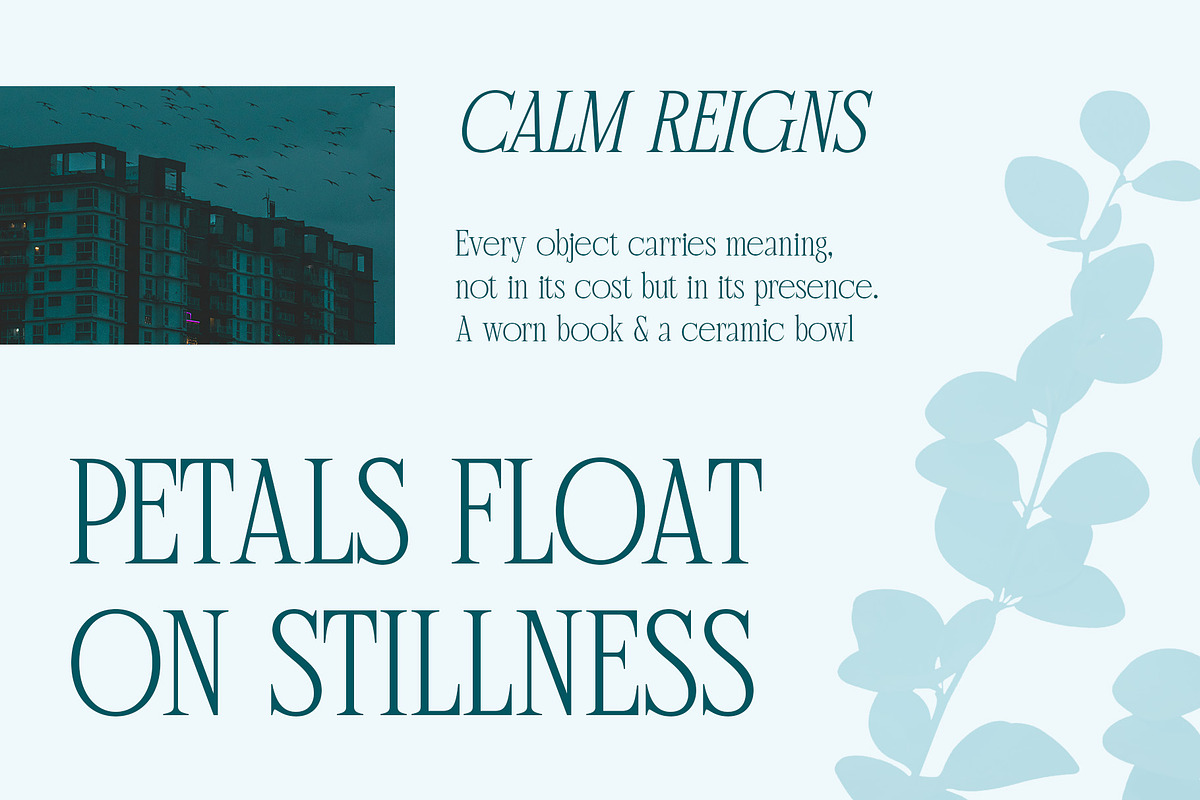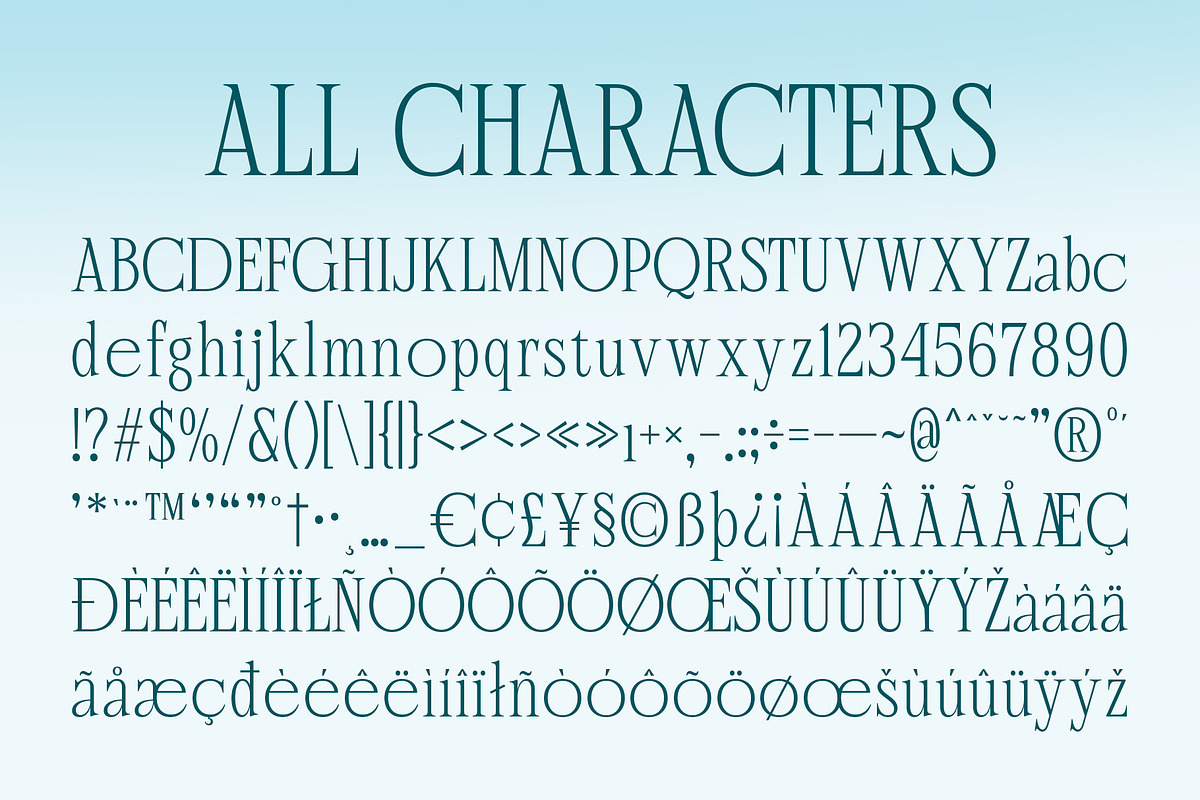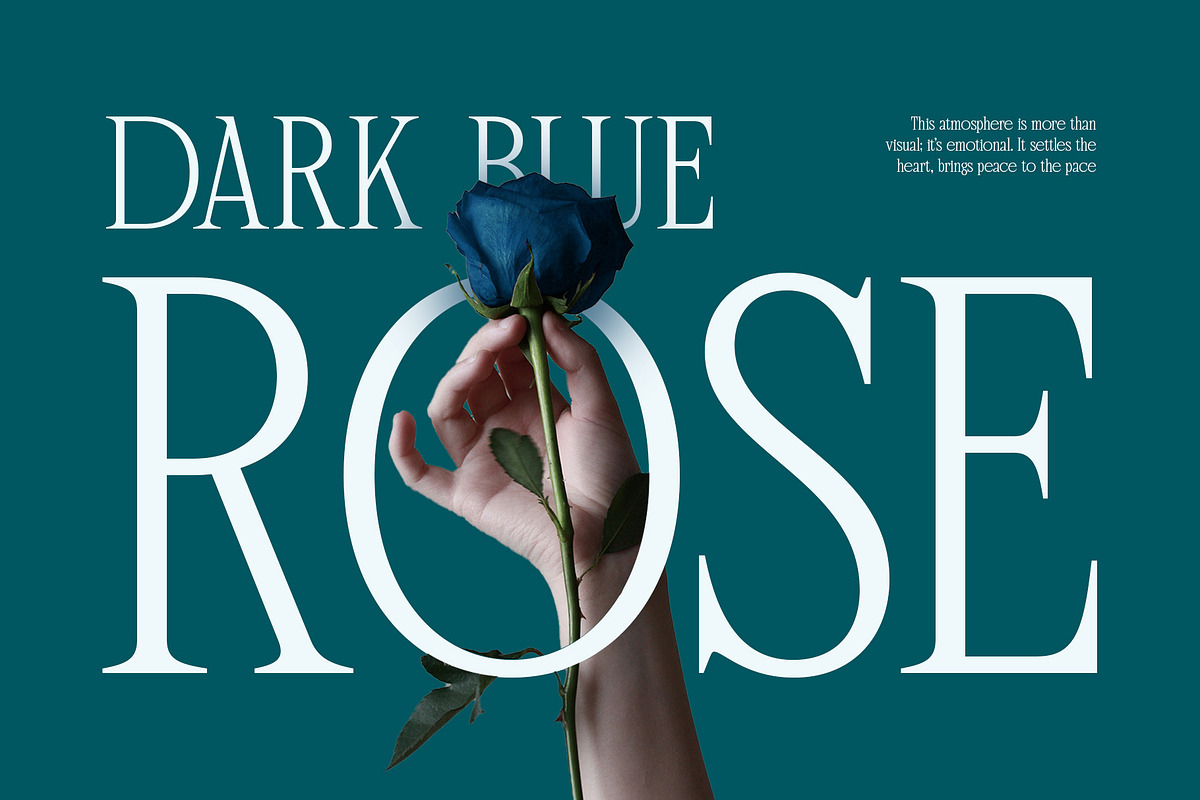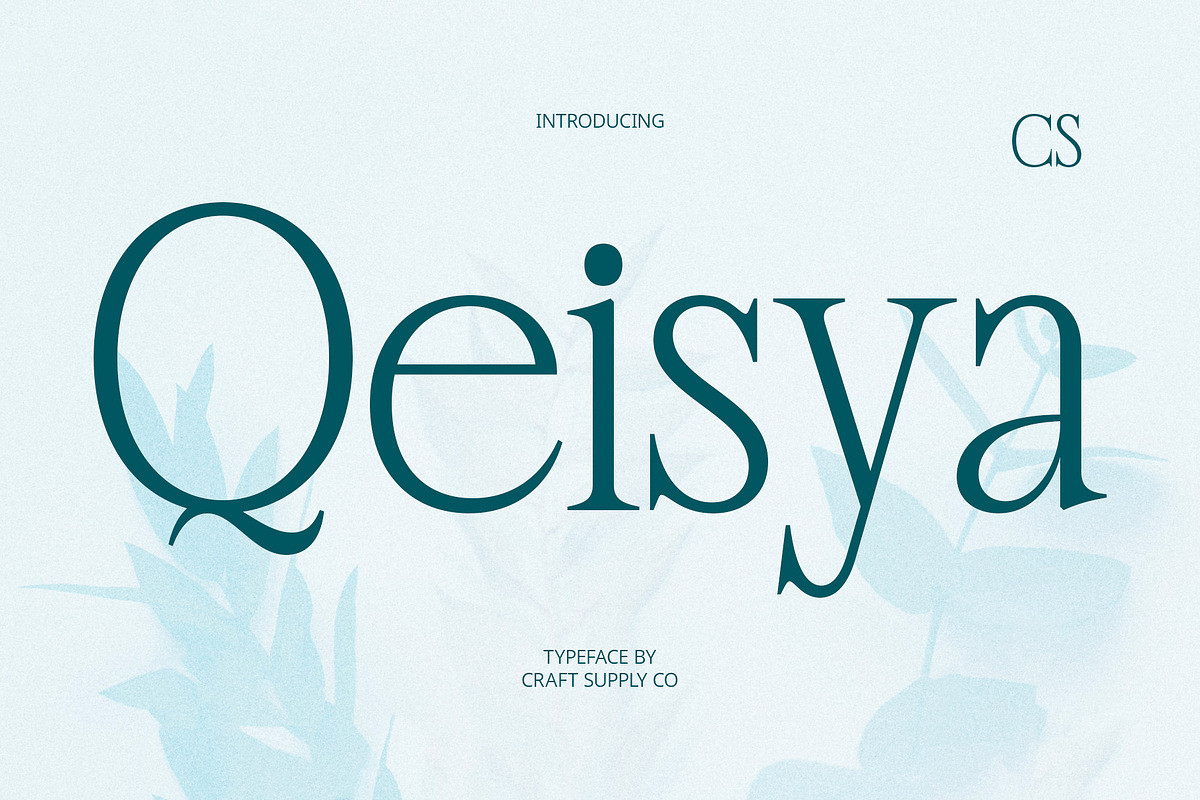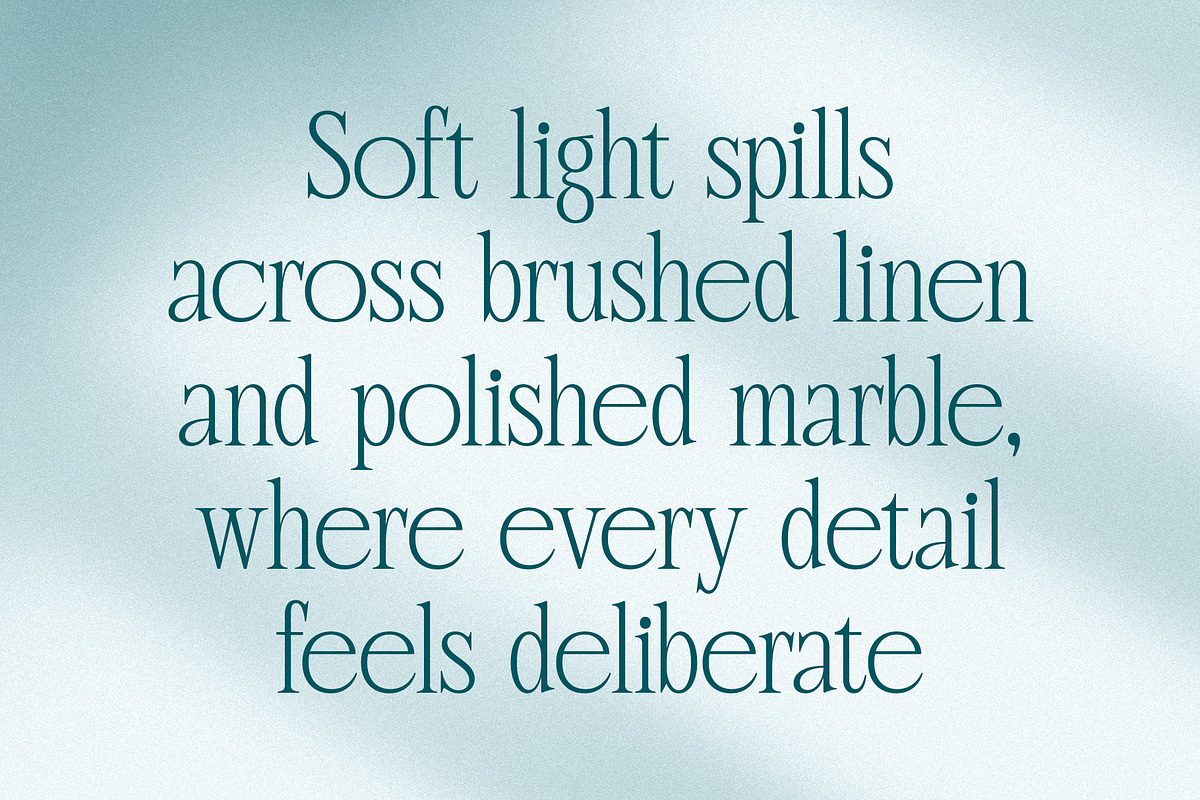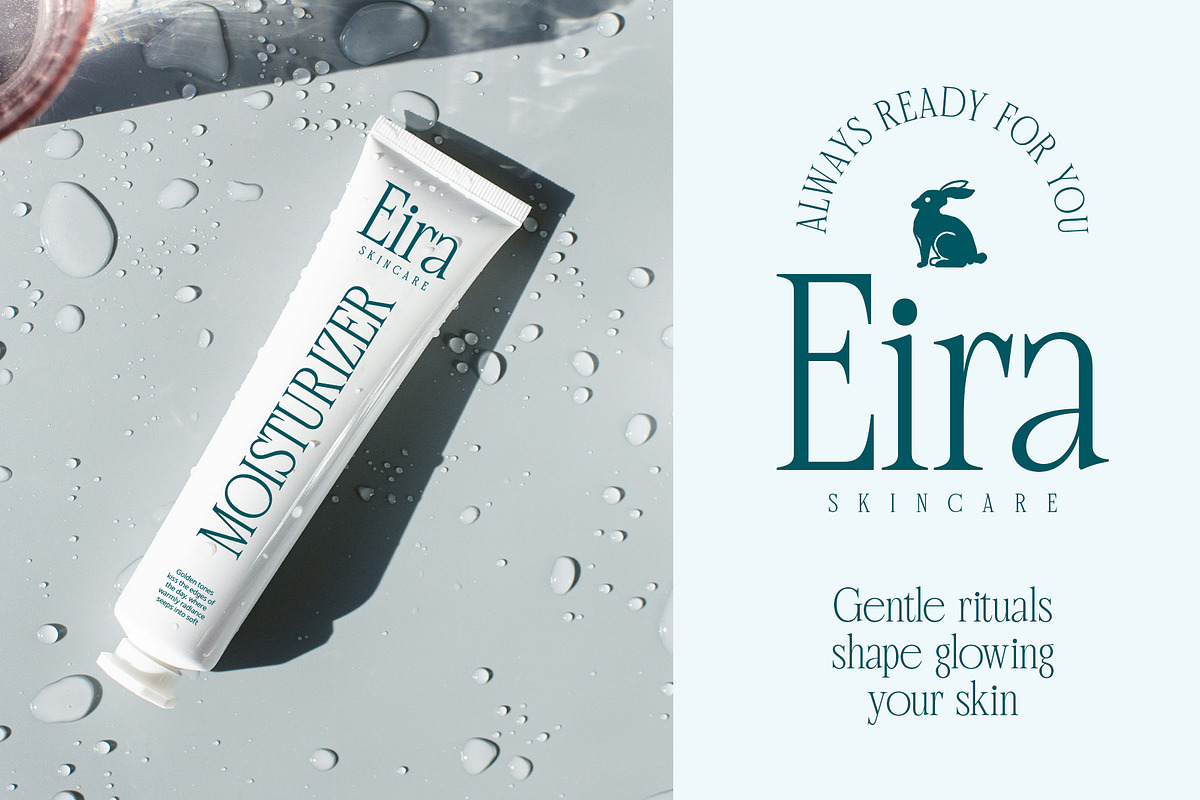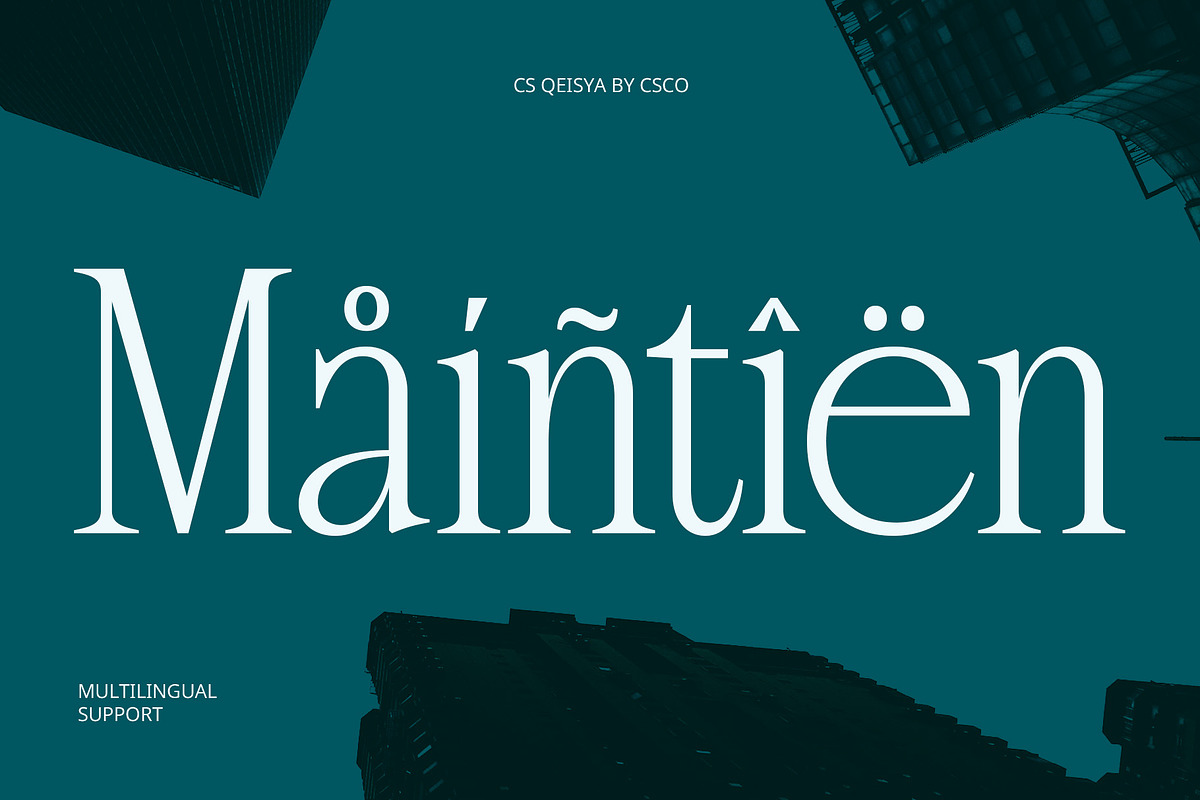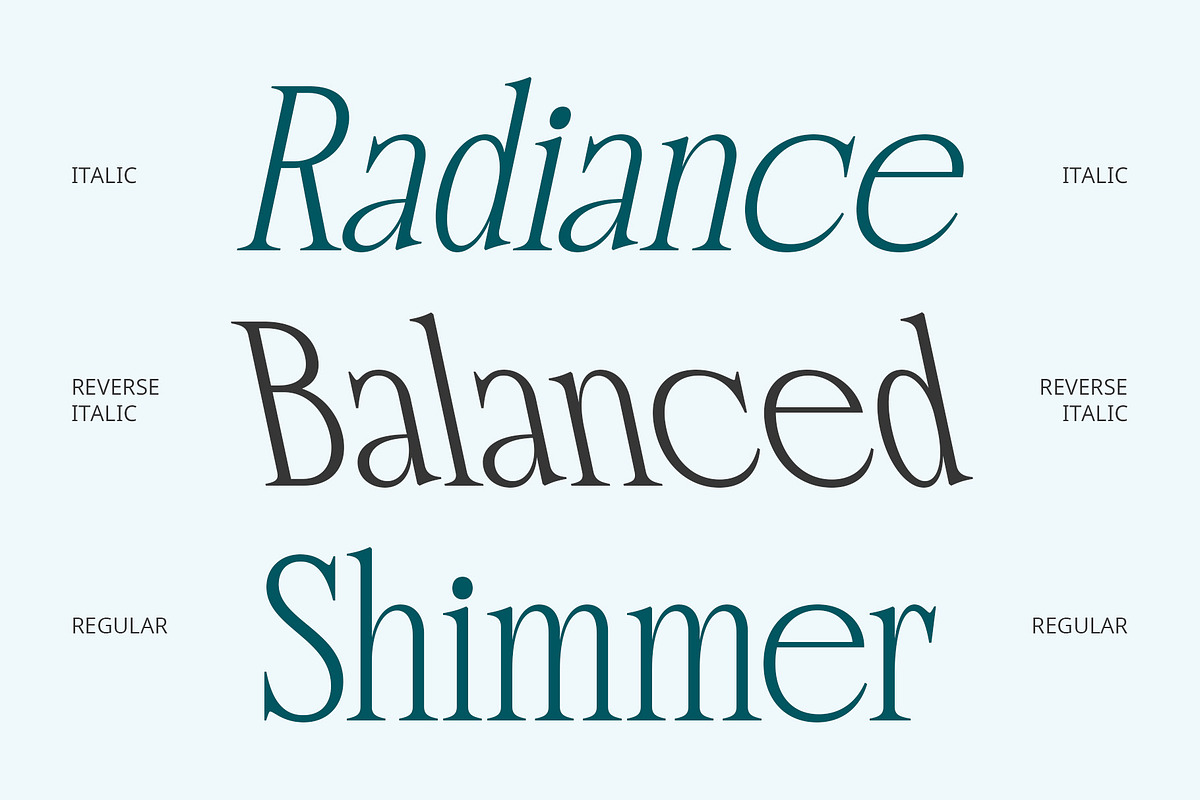
CS Qeisya – Contemporary Font
CS Qeisya – Contemporary Font: Where Modern Grace Meets Timeless Form
Modern Serif with Contemporary Elegance CS Qeisya is a modern serif font that blends slender forms with refined serif details to deliver a captivating and elegant typographic experience. With its graceful lines and intelligent structure, it balances the clarity of a modern design with the nuance and poise of classical typography—ideal for visual storytelling that demands both precision and beauty.
Tall Proportions and Extended Serifs The tall, narrow letterforms of CS Qeisya offer space-efficient elegance, while its long, finely-crafted serifs add a sense of rhythm and refinement. These vertical, structured proportions make it highly legible yet visually striking, adding a subtle grandeur to text-based compositions.
Clean, Slim, and Sophisticated Look With its thin strokes and minimal contrast, CS Qeisya maintains a clean and slim silhouette, making it perfect for designs that favor simplicity with depth. The font’s contemporary construction ensures that it reads with clarity while still exuding an air of exclusivity and professionalism.
Versatile for Luxury and Professional Design CS Qeisya is exceptionally versatile—ideal for high-end branding, fashion editorials, corporate identities, and modern visual presentations. Whether used in headlines, logos, magazine spreads, or packaging, it conveys a refined and intellectual impression, elevating any project with its sophisticated charm and confident aesthetic.
- CS Qeisya Regular
- CS Qeisya Italic
- CS Qeisya Reverse Italic